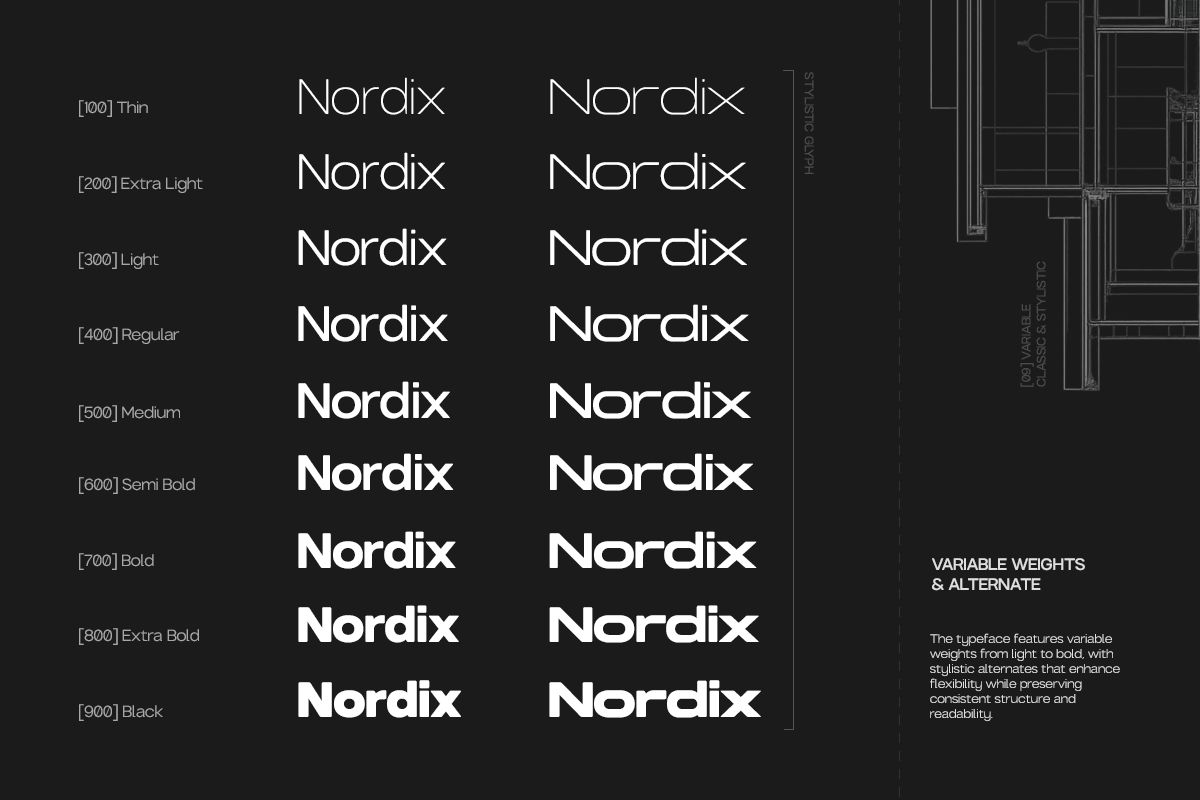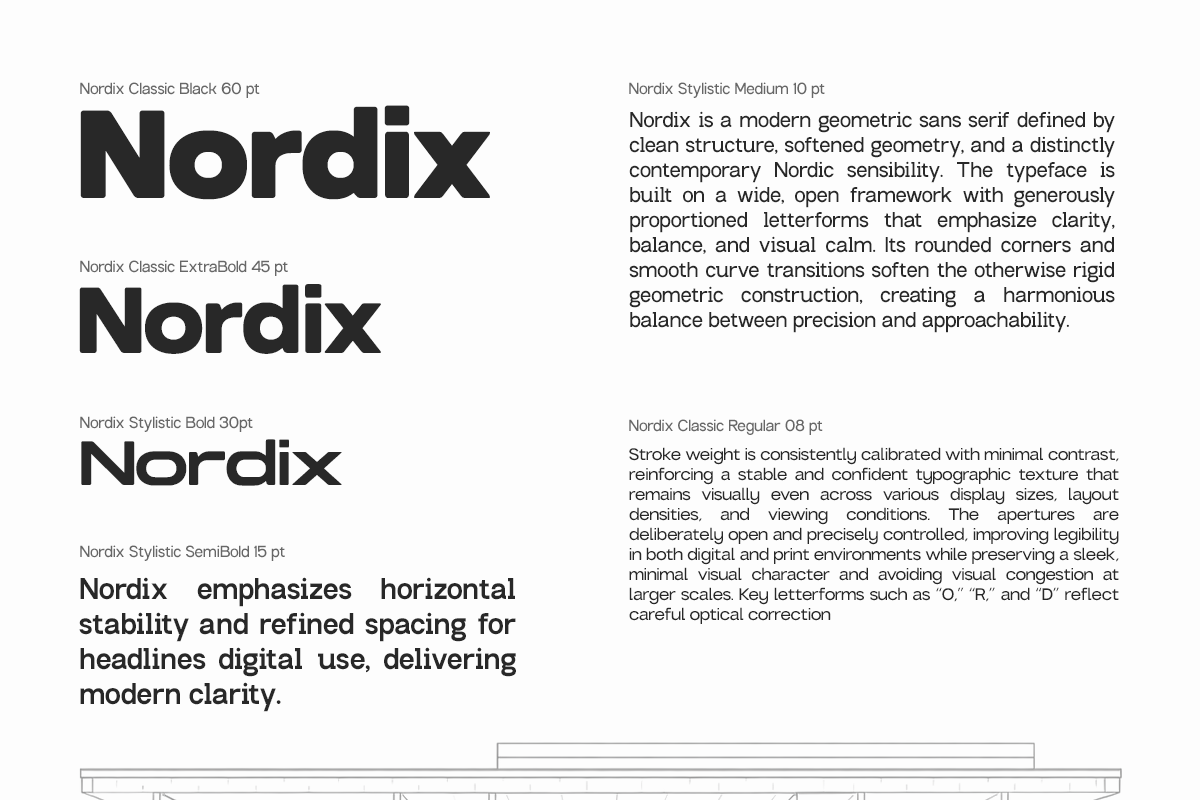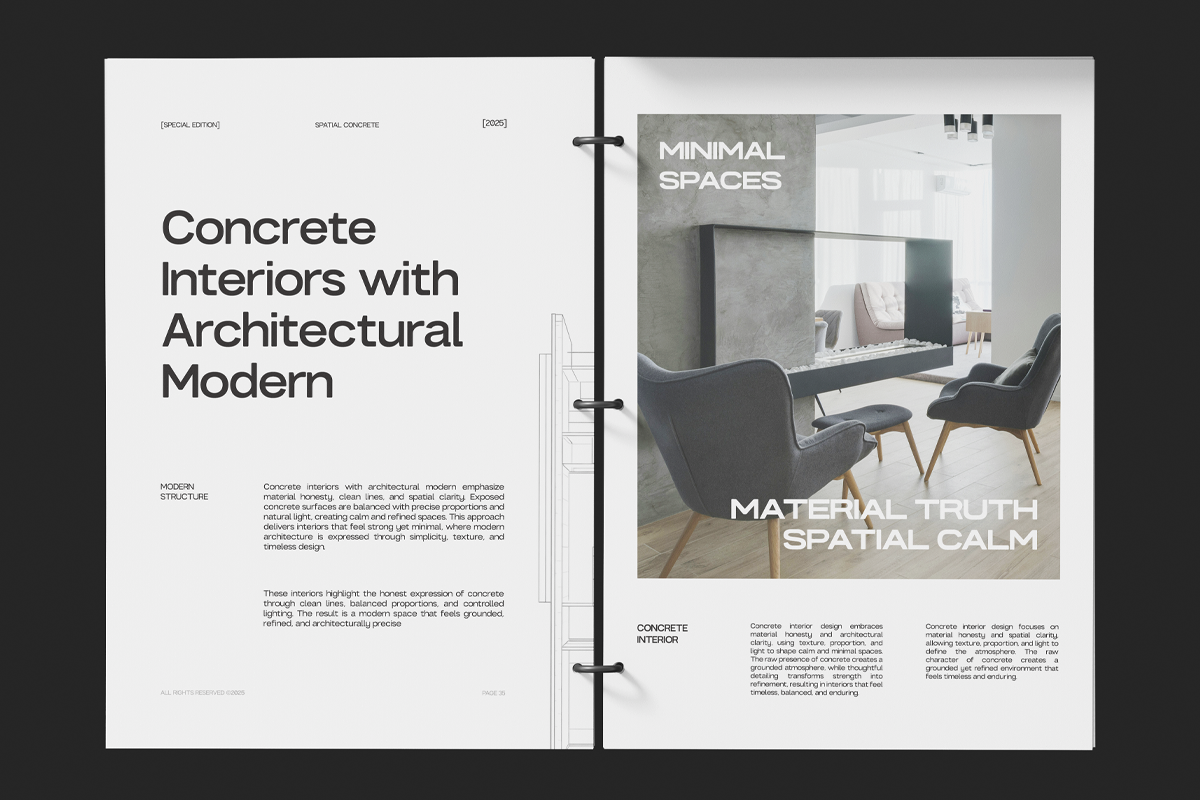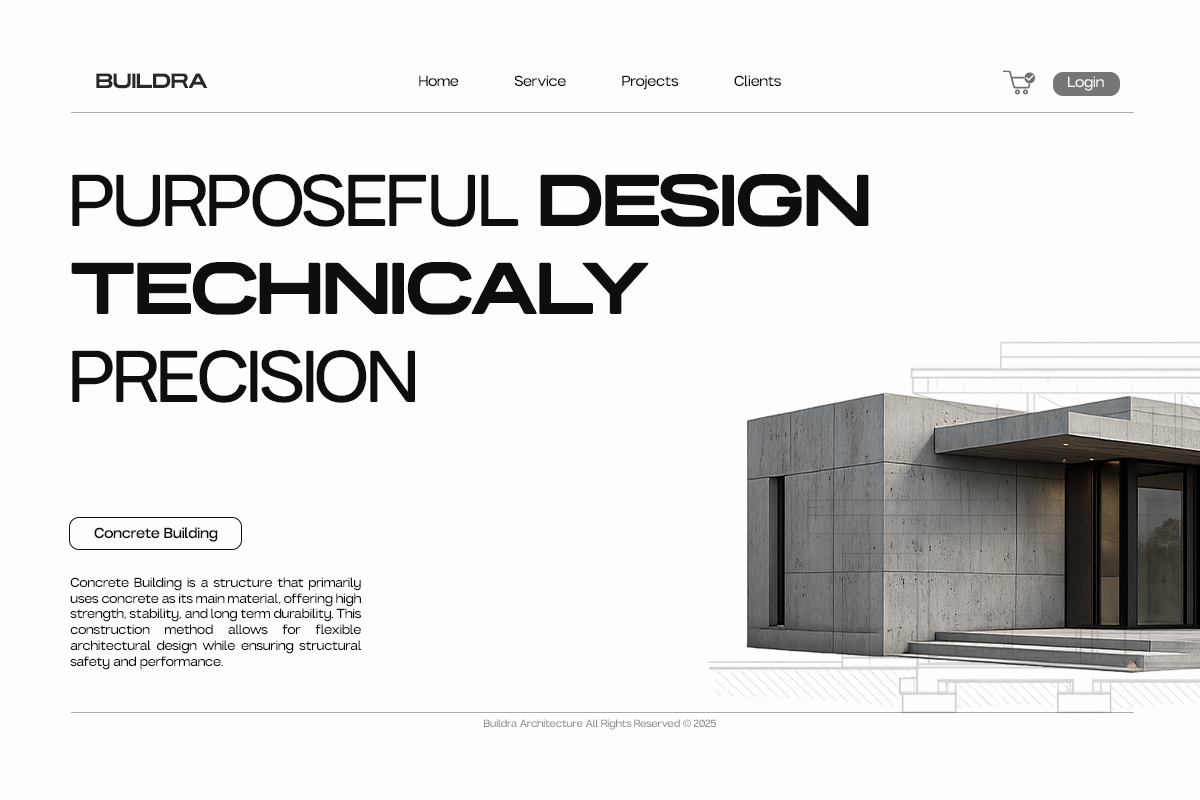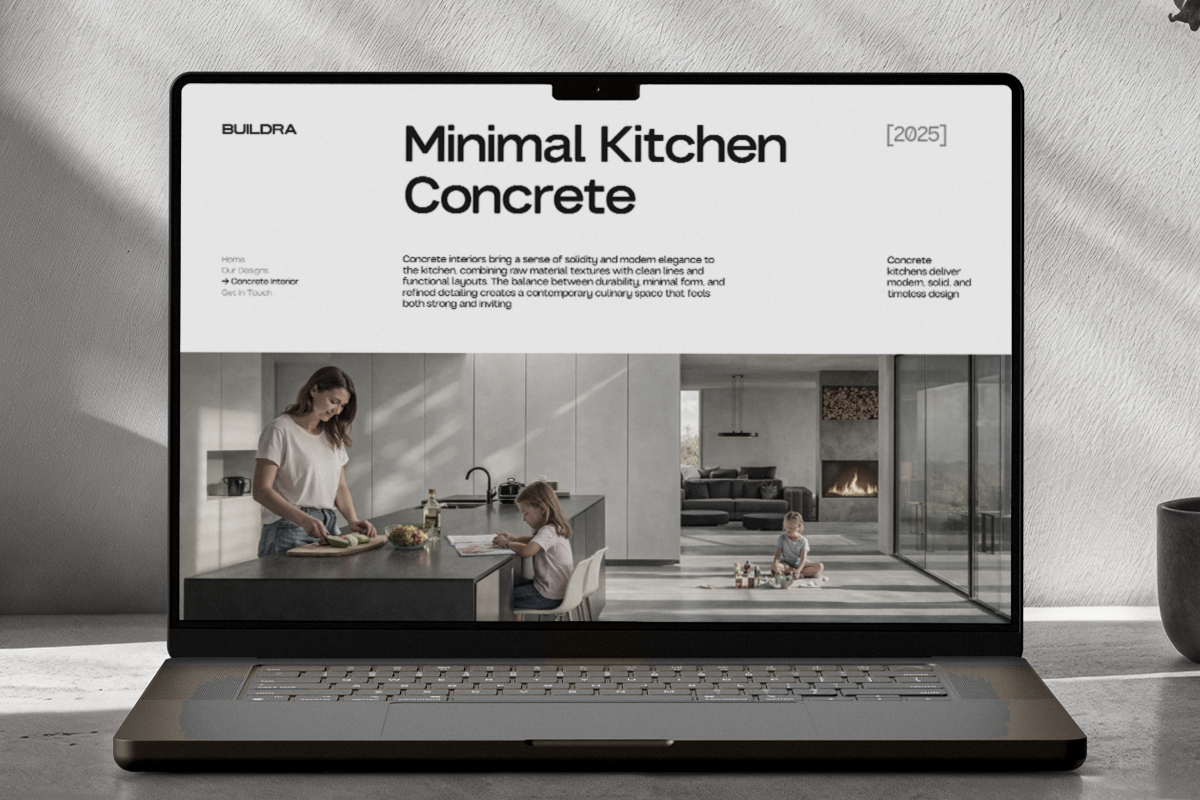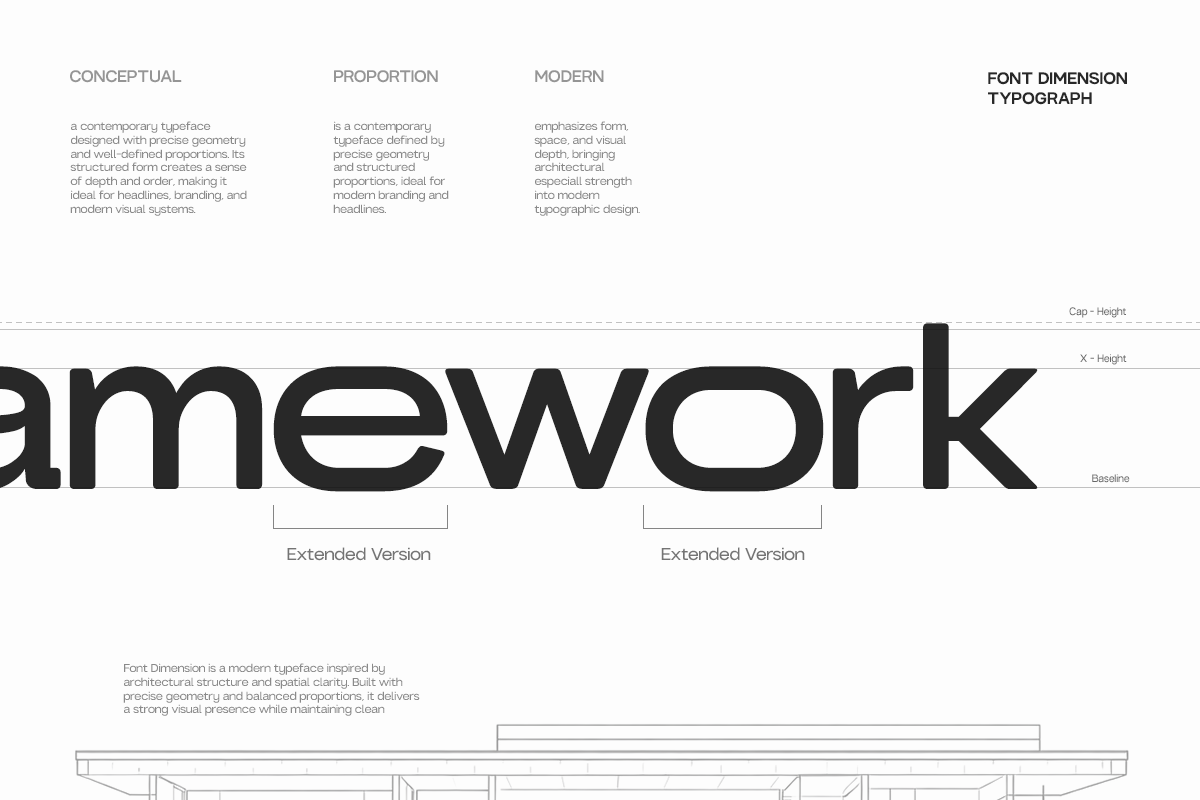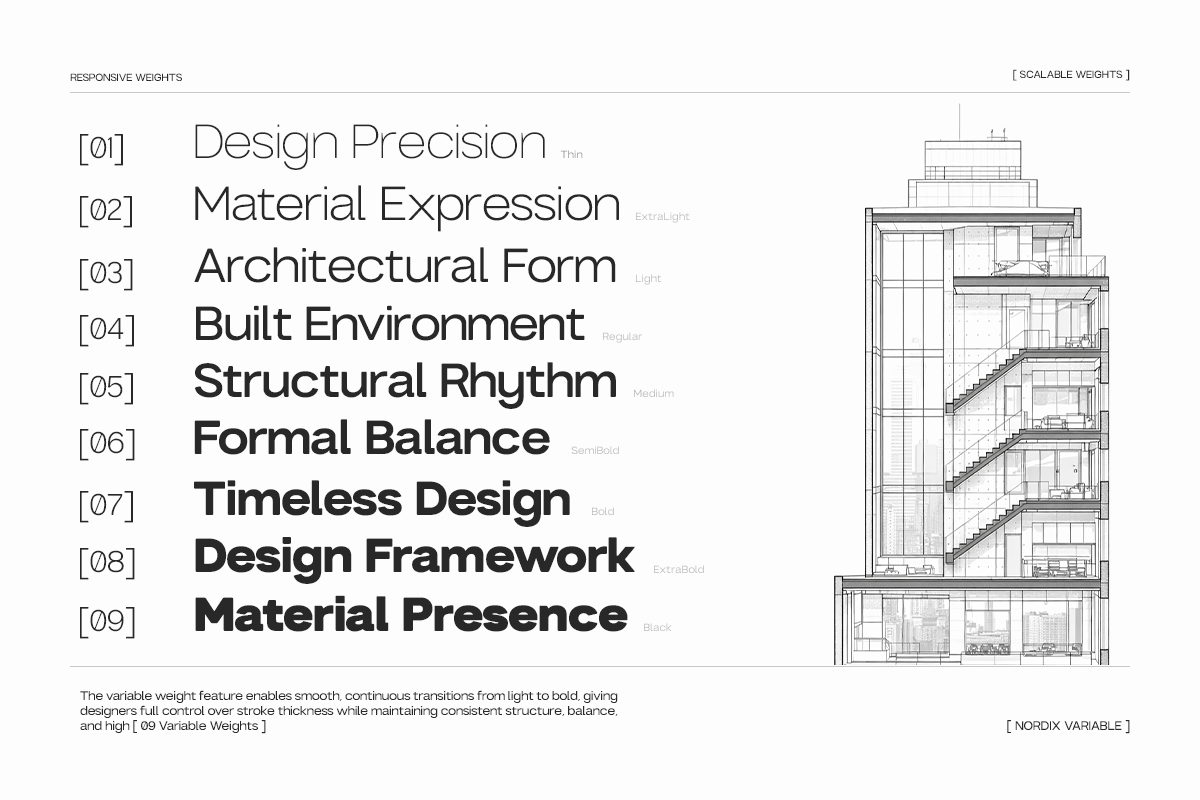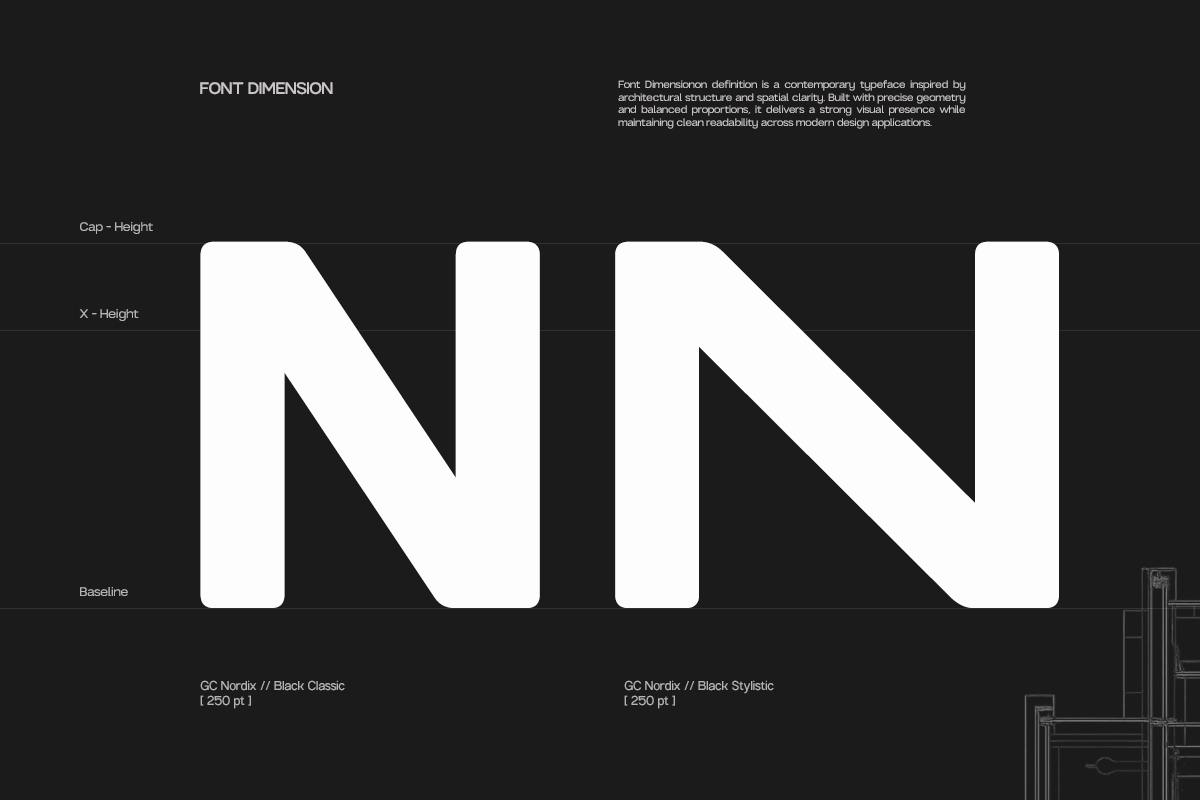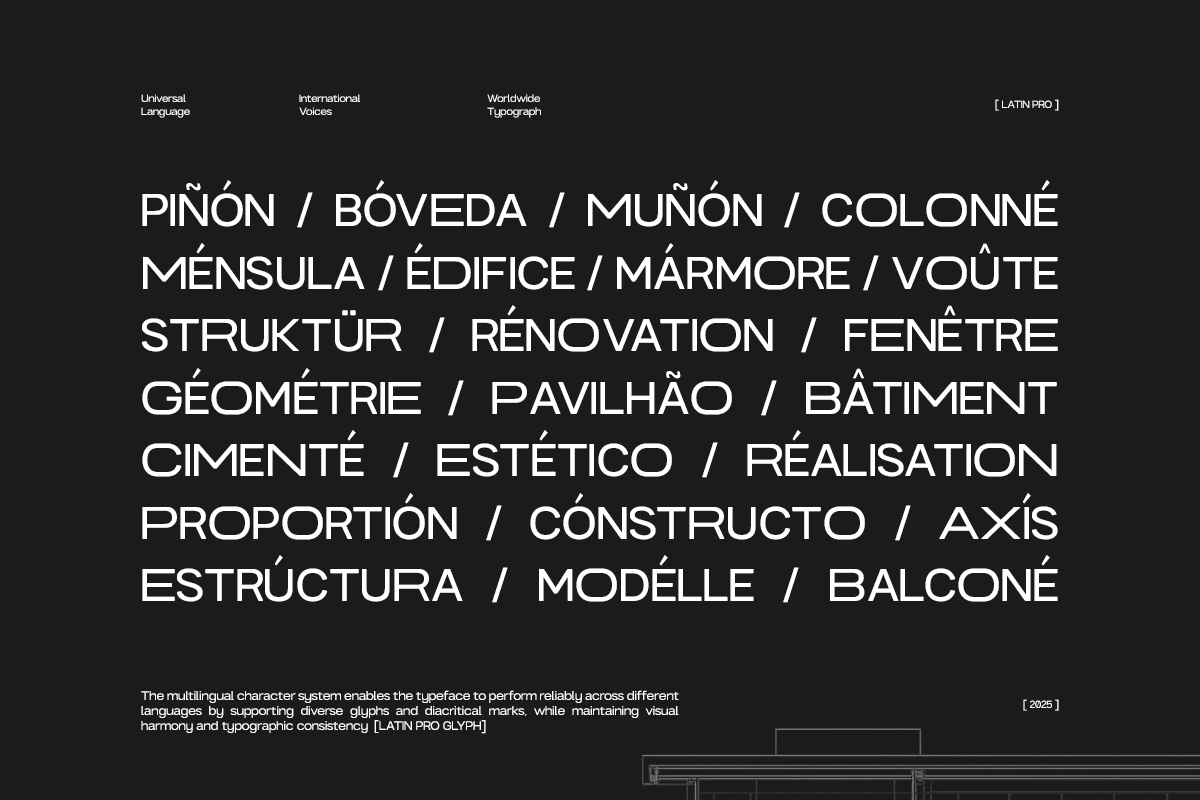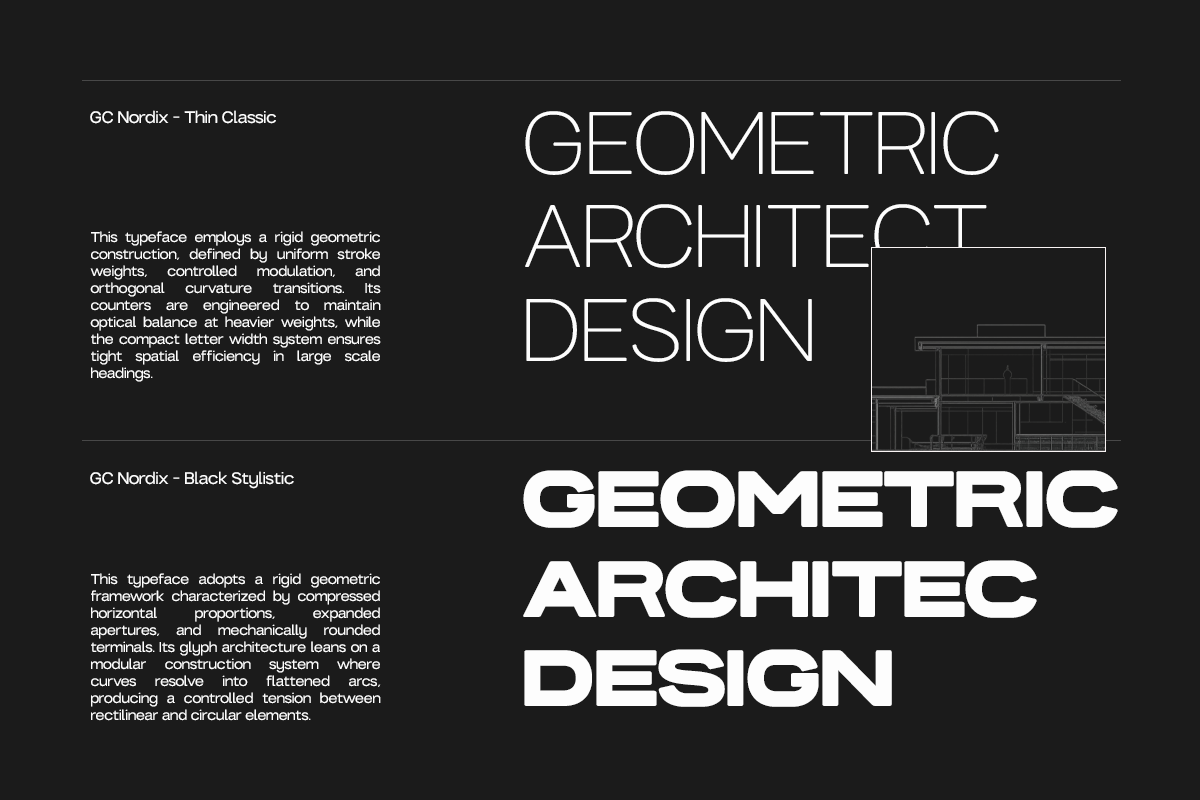
GC Nordix - Bold Geometry Type
GC Nordix – Bold Geometric Type is a contemporary sans serif typeface built on strong geometric foundations and modern proportions. Designed to deliver bold clarity and confident structure, Nordix presents a clean yet powerful typographic voice suited for modern visual communication.
With solid forms, sharp edges, and balanced geometry, GC Nordix is crafted to perform seamlessly across digital and print media. Its bold construction makes it ideal for headlines, branding systems, editorial layouts, and modern architectural or tech-driven design projects—where strength and precision are essential.
As a variable typeface, GC Nordix offers flexible weight control, allowing designers to fine-tune visual hierarchy and adapt typography across multiple layouts and platforms with ease. Despite its bold presence, the font maintains clarity and legibility, ensuring consistency without sacrificing character.
Whether used for striking headlines, scalable interfaces, or minimalist posters, GC Nordix brings structure, modernity, and geometric impact to your typography.
- Variable Font (Adjustable Weight Axis)
- Bold Geometric Construction
- Multilingual Support (170+ Languages)
Bring bold geometry, flexibility, and modern strength to your design with GC Nordix.